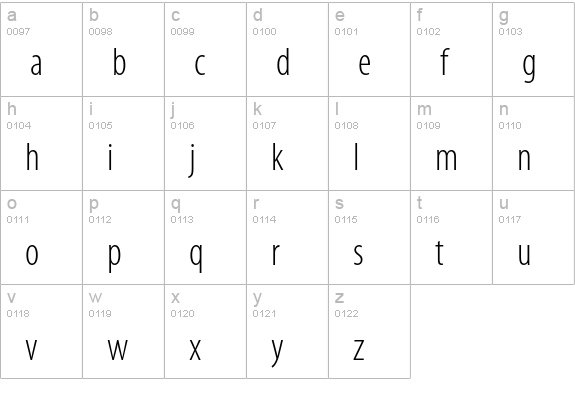
Myriad Pro Light Condensed is a refined, elegant, condensed-width variant in the Myriad typeface family \xE2\x80\x94 well suited to elegant body text, refined sub-headings, and luxury branding.
Myriad Pro Light Condensed font is a sleek and modern typeface that exudes sophistication and elegance. With its clean lines and compact design, this font is perfect for conveying a sense of professionalism and style in any project. The light weight of the font adds a touch of delicacy and refinement, making it ideal for use in headings, titles, and other prominent text elements. One of the best things about Myriad Pro Light Condensed font is that it is available for free download at FontsMarket.com. This means that you can easily access this versatile and stylish font without any cost, making it a valuable addition to your design toolkit. Whether you're working on a website, a logo, a brochure, or any other design project, Myriad Pro Light Condensed font is sure to enhance your work with its contemporary aesthetic and timeless appeal.